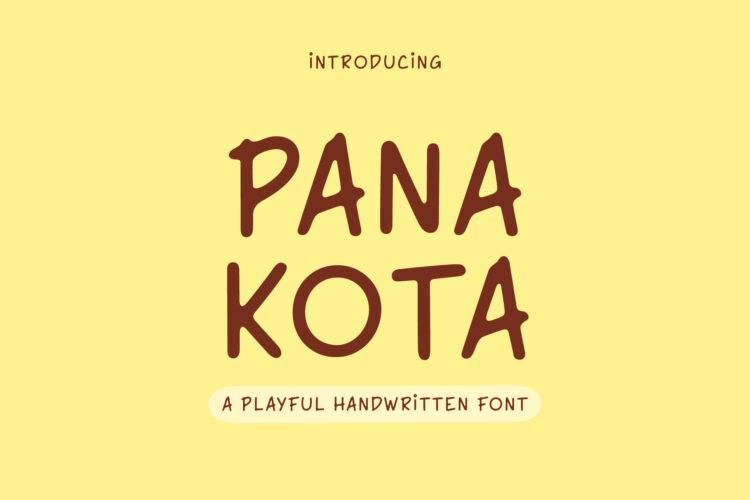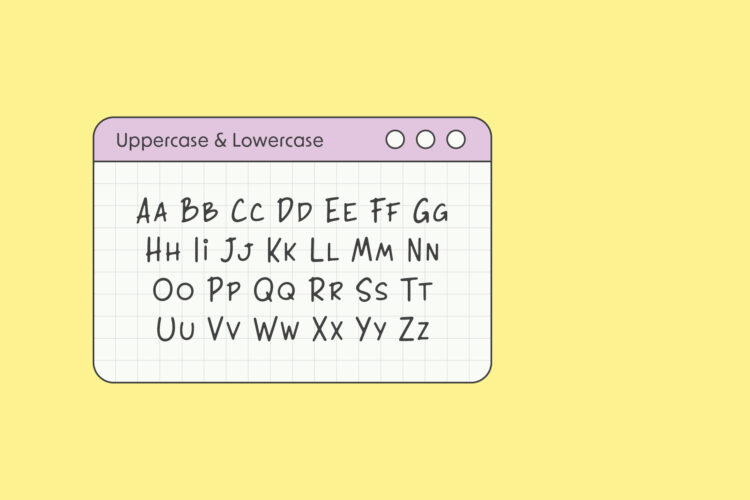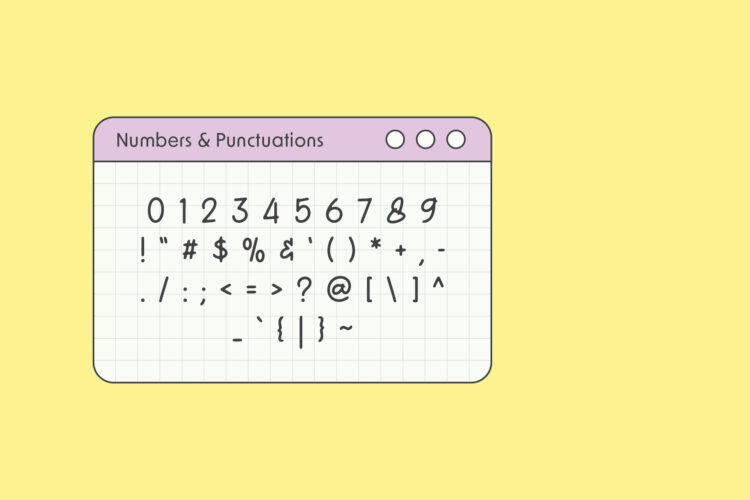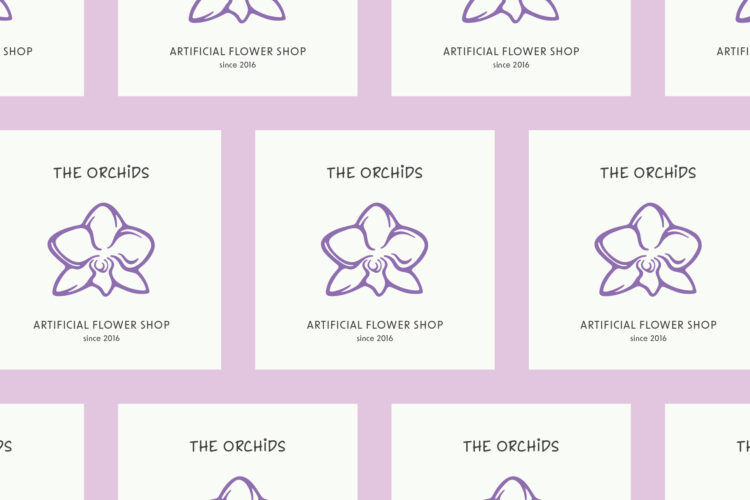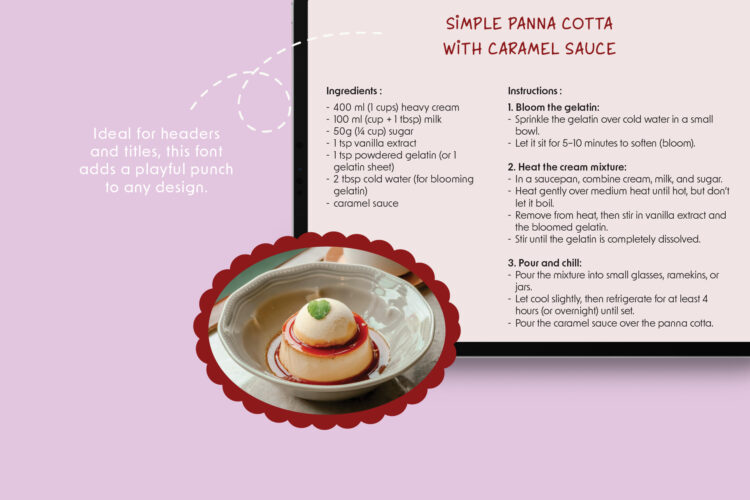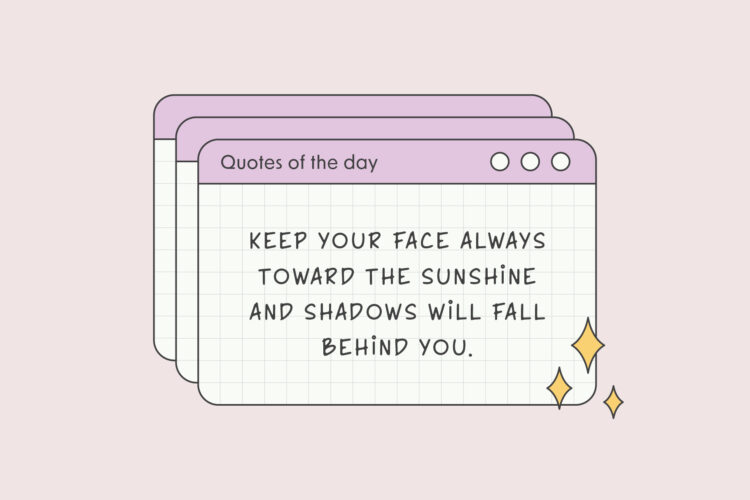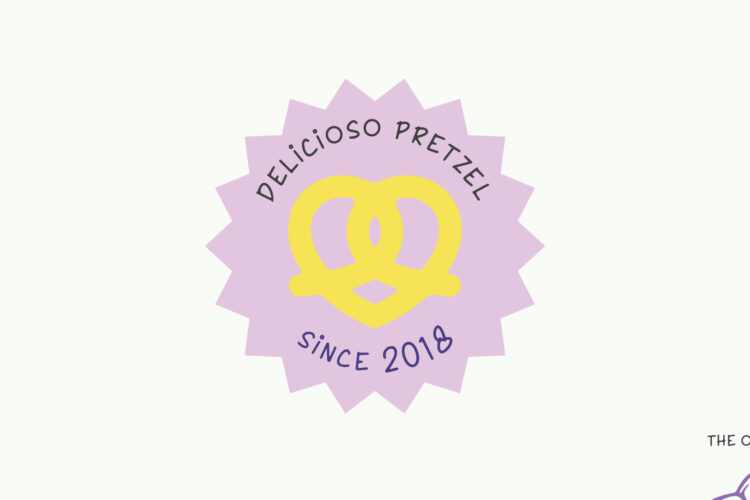
Panakota is a playful, hand-drawn font that’s perfect for all things cute, creative, and kid-friendly. Its rounded, lively shapes make it ideal for designs that need a little extra fun. In fact, it captures the spirit of childhood with every letter. You can use Panakota for posters, books, classroom projects, birthday cards, packaging, and more. As a result, your designs will feel more joyful and engaging.
The font includes uppercase and lowercase letters, numbers, and a set of basic symbols. This gives you everything you need to create a complete and colorful layout.
Overall, Panakota brings a happy, handcrafted feel to your work. Let it help you design something fun, warm, and full of imagination!